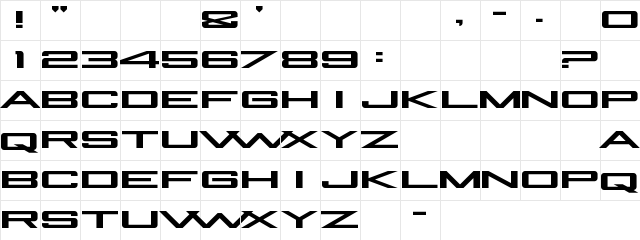
Be A Pro Regular
Design Context for Be A Pro Typeface
Be A Pro takes a measured approach to typography — its balanced proportions and neutral character make it a reliable workhorse for both digital and print work.